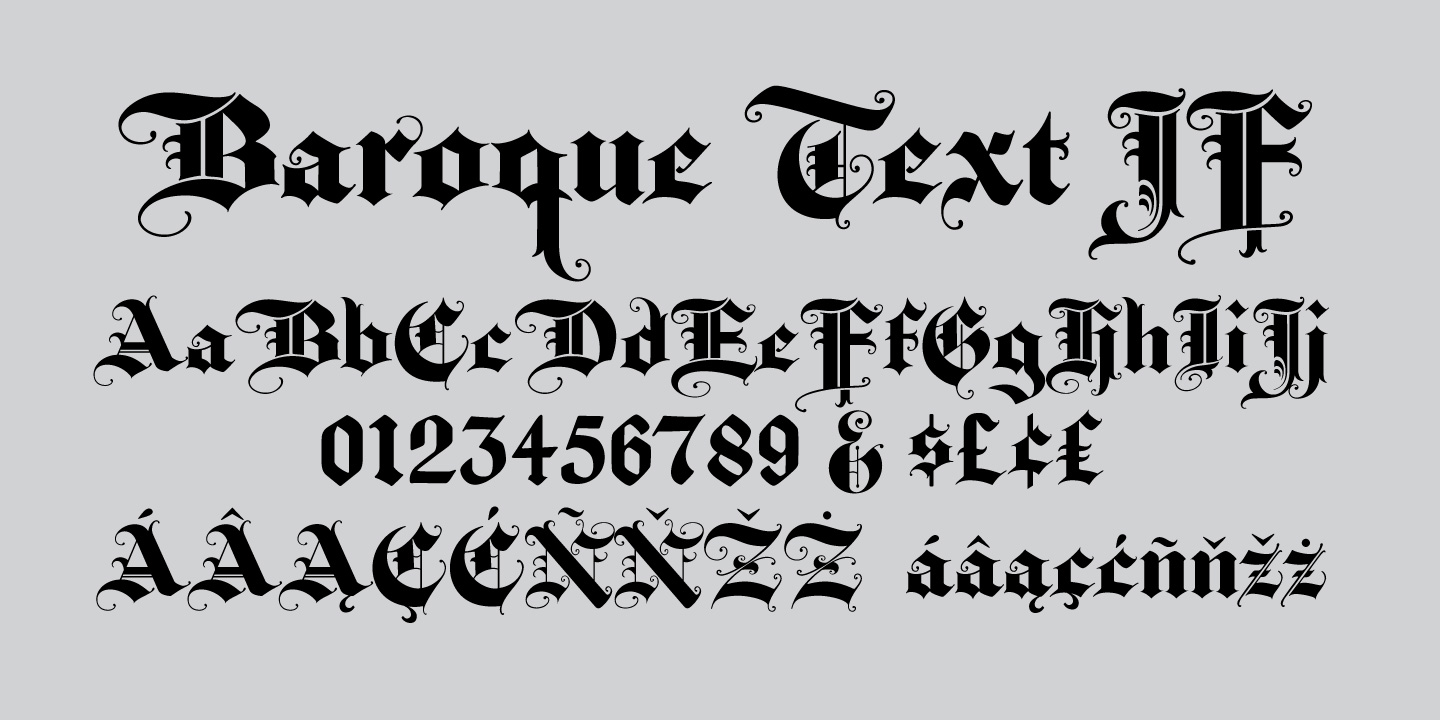
The Baroque Text JF Font is perfect for classical music programs, art history publications, museum exhibition catalogs, luxury hotel materials, fine arts galleries, baroque architecture firms, historical society documents, and prestigious cultural events. This ornate typeface works exceptionally well in applications where artistic sophistication and baroque grandeur need to be emphasized, making it ideal for cultural institutions that want to communicate classical elegance and artistic heritage through historically authentic, decoratively rich typography.
What makes Baroque Text JF Font exciting is its ornamental splendor and classical artistic refinement that captures the essence of baroque magnificence and cultural sophistication. The font's elaborate letterforms and period-inspired character design create an atmosphere of artistic excellence and historical authenticity, making it perfect for organizations that want to honor classical traditions while maintaining contemporary relevance. Its ornate presence ensures that every application feels like a masterpiece with genuine baroque elegance and cultural distinction.
The Baroque Text JF Font family typically includes regular, italic, and ornamental weights, often featuring decorative flourishes, classical ornaments, and baroque-inspired elements that enhance its artistic authenticity. Many versions include period motifs, architectural details, and specialized characters that provide designers with comprehensive tools for creating authentic classical design projects with genuine baroque sophistication and artistic excellence.
For designers working on projects that require classical authenticity and baroque credibility, Baroque Text JF Font Free Download offers exceptional artistic heritage. Its ability to instantly communicate cultural sophistication and classical elegance makes it an invaluable choice for museums, cultural institutions, and any project requiring typography that embodies the ornate beauty of baroque art, the refinement of classical culture, and the timeless appeal of decorative artistic traditions and cultural magnificence.